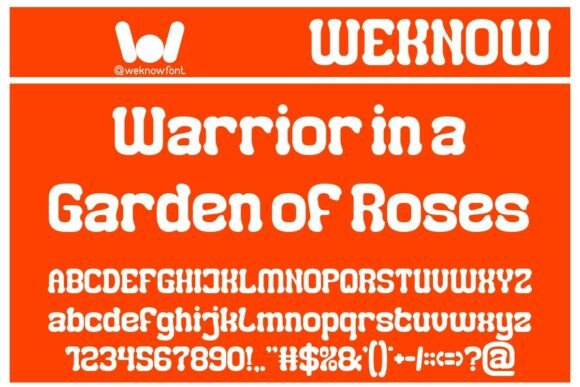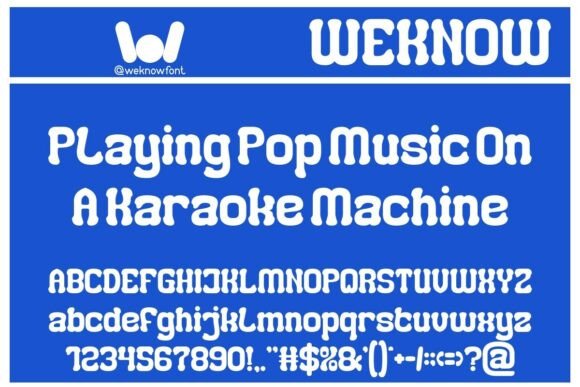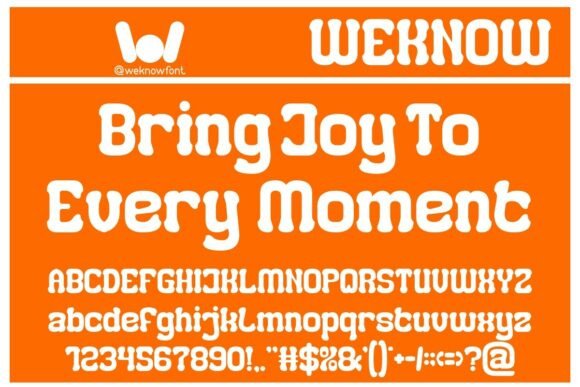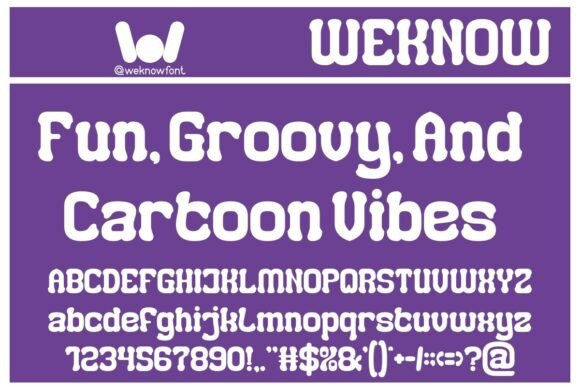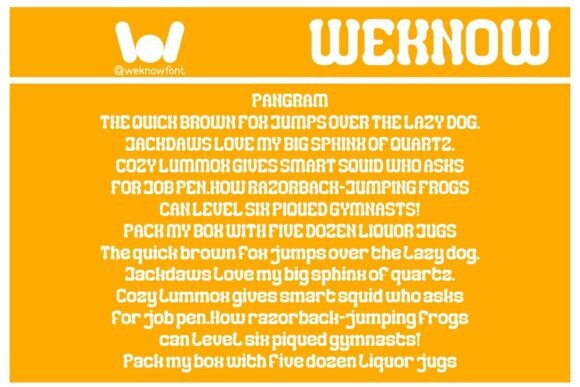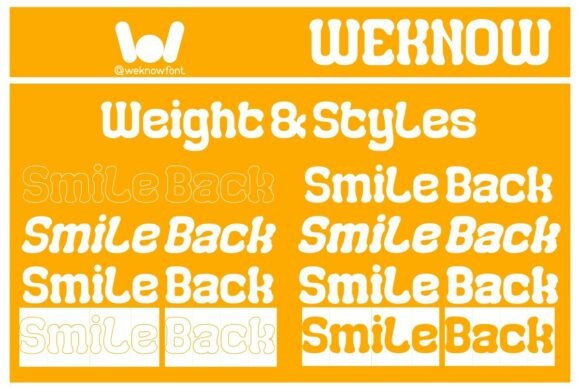
Introduction to Smile Back Font
Introducing Smile Back, an exceptional display font that imbues a bubbly retro charm, complete with rounded edges that instantly transport you to the groovier days.
This playful font with its pop fancy styles is the perfect choice for breathing life into your design projects It’s ideal for making a statement with logos, headlines, or corporate identity, giving your brand that distinctive and memorable edge.
Key Features of Smile Back Font
Why Choose Smile Back Font?
Smile Back Font offers exceptional quality and versatility, making it a valuable addition to your design toolkit. Whether you’re creating for personal projects or commercial use, Smile Back Font delivers professional results.